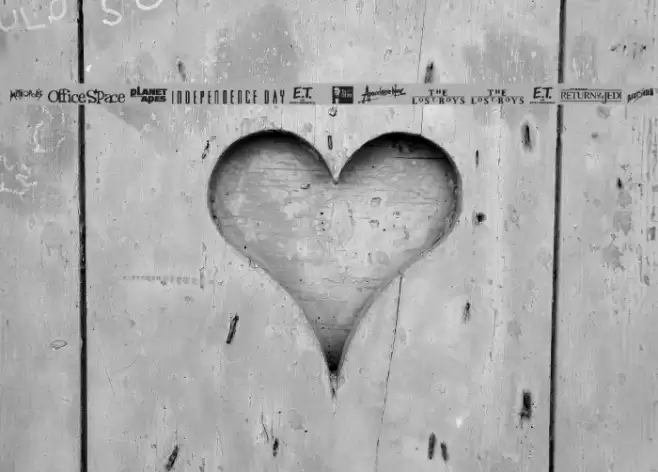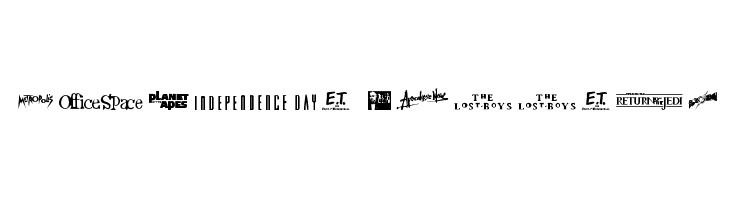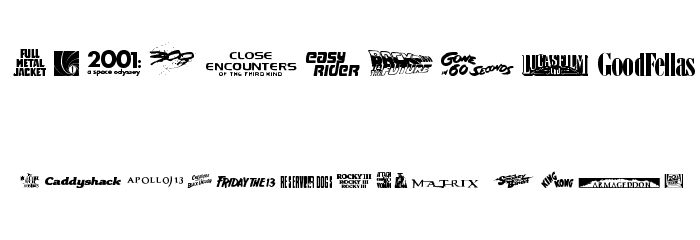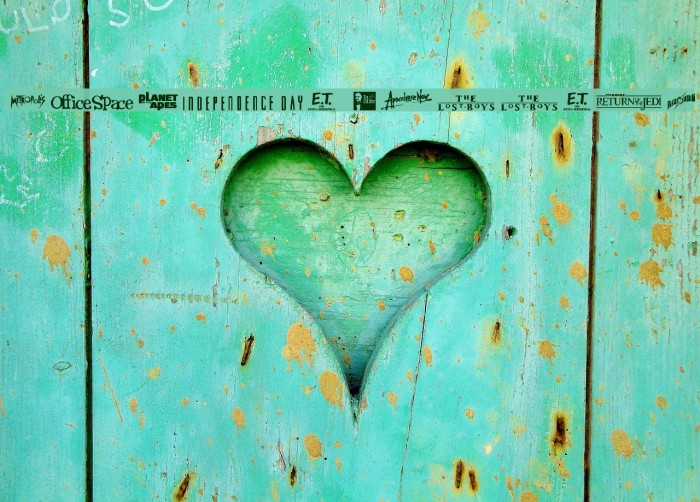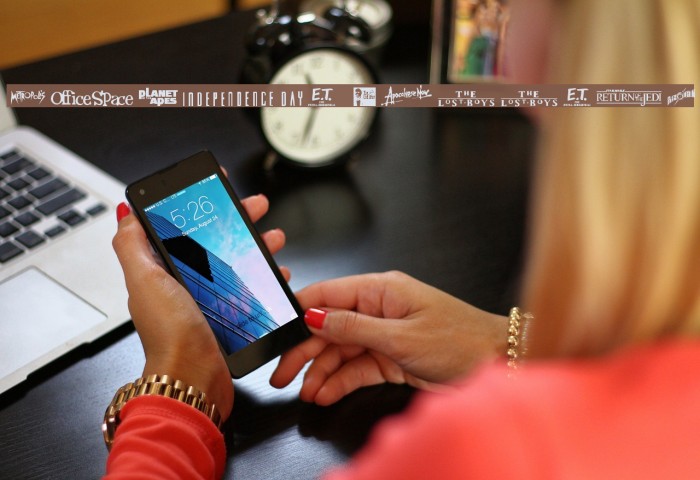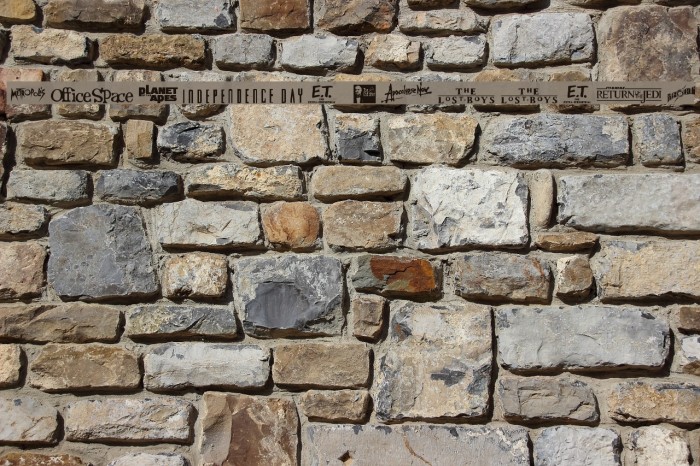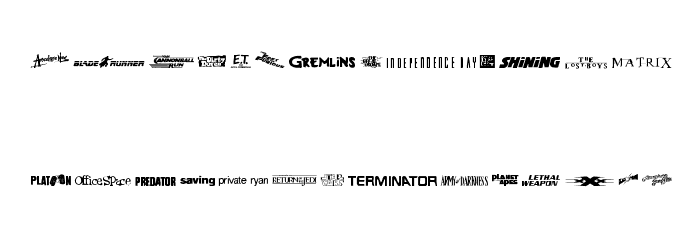
Movie Gallery Font
Movie Gallery Description
A highly decorative and eclectic font collection, each letterform mimics the iconic styles of various famous movie logos, resulting in a diverse mix of weights, widths, and design elements. The set includes uppercase, lowercase, numbers, and common symbols, with each character styled uniquely to reference a different film.
A display font where each character is styled after a famous movie logo from Dingbats fonts.
- Proposed Projects: Movie-themed posters, party invitations, film festivals, entertainment branding, novelty merchandise.
- Overall Style: Decorative, Eclectic, Thematic
- Use Case: Headlines, Logos, Posters, Themed Graphics